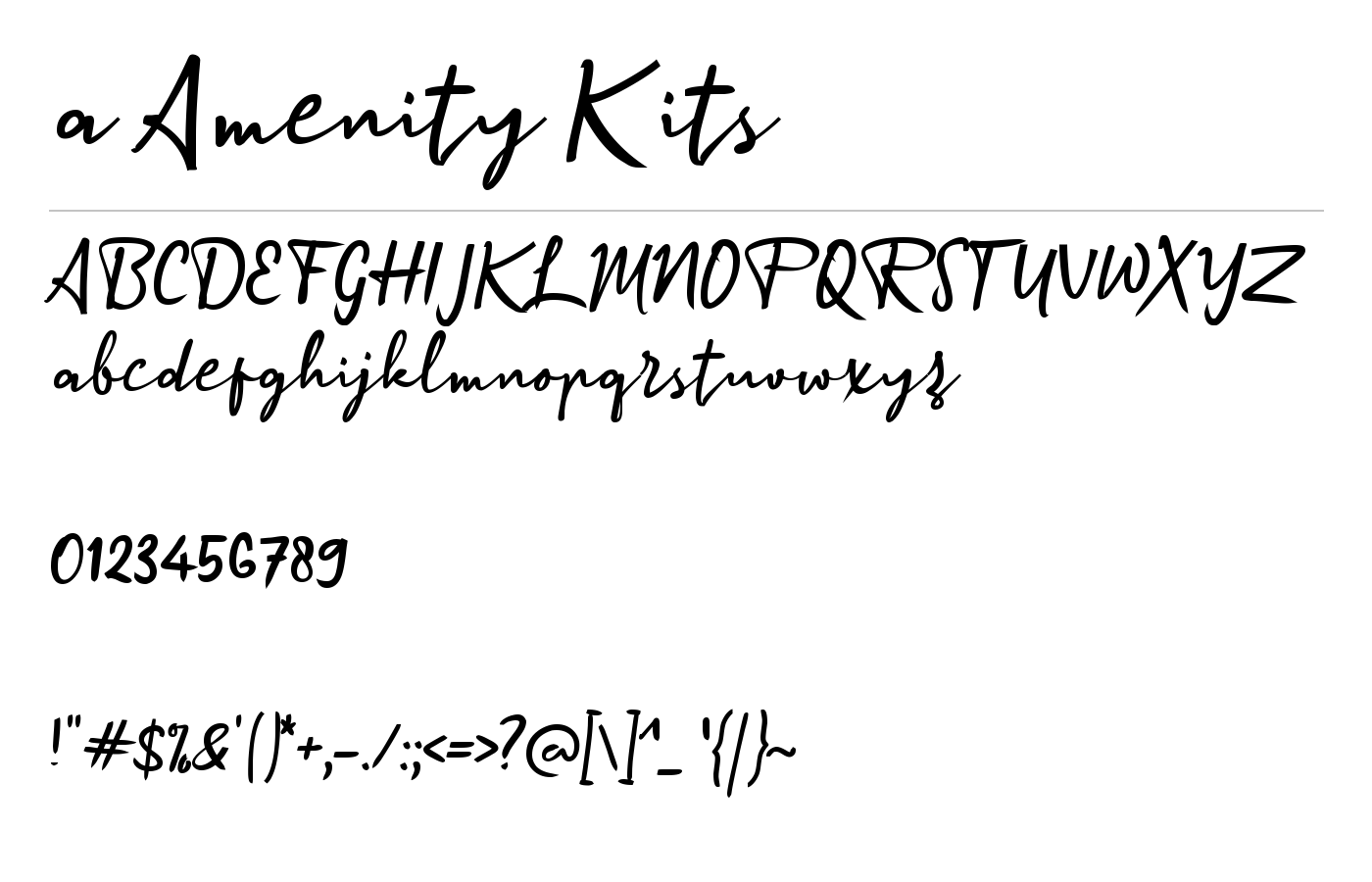
Amenity Kits is a lively and expressive script font with a hand-drawn feel, featuring playful yet elegant letterforms that blend casual charm with refined strokes. Its moderate weight and slightly slanted, flowing characters make it ideal for creative branding, invitations, and stylish headlines where a personal, approachable touch is desired. This font works well in designs seeking a friendly and sophisticated vibe without losing readability or character.
a Amenity Kits Font
About a Amenity Kits Font